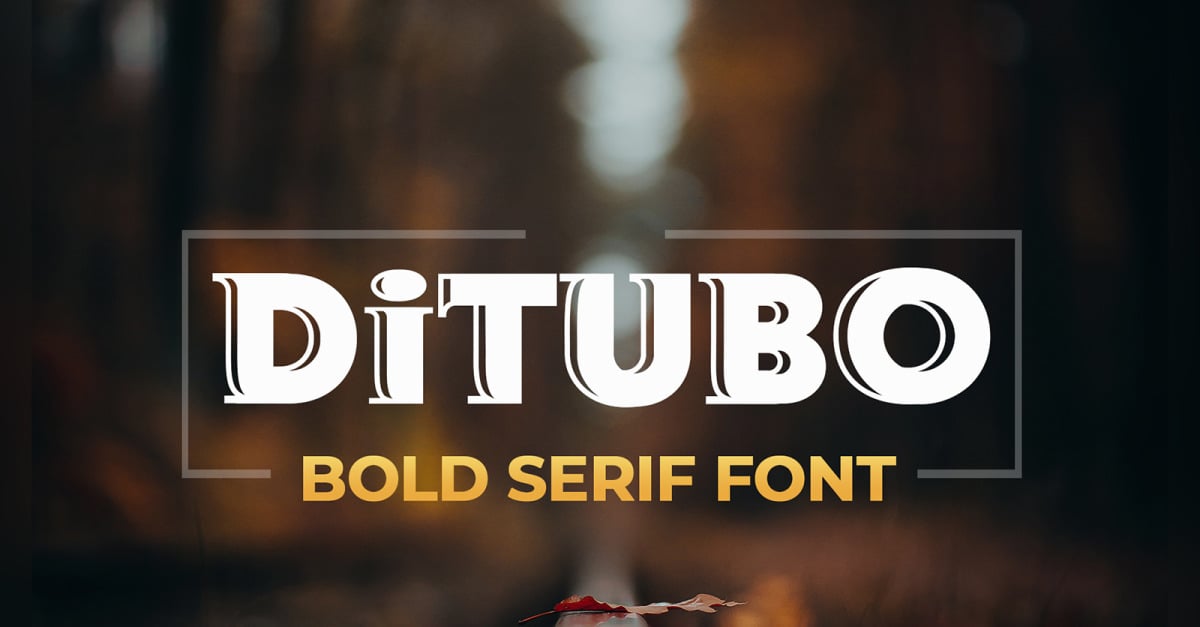
Ditobu - Bold Serif Fonts
Introducing **Ditobu**, a simple and modern bold style serif font.
So perfect for you who needs a typeface for logo designs, magazine, social media, brochure, and many more.
**Features**
+ Uppercase
+ Numerals
+ Alternate (i, _I, T, u)